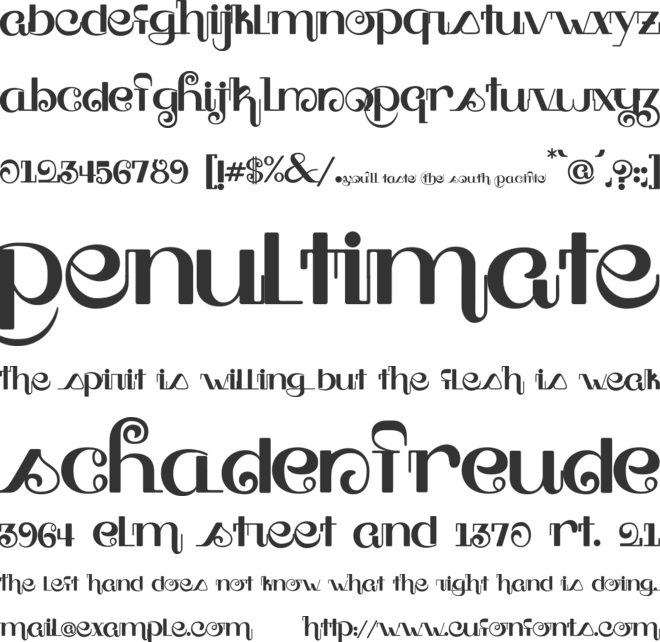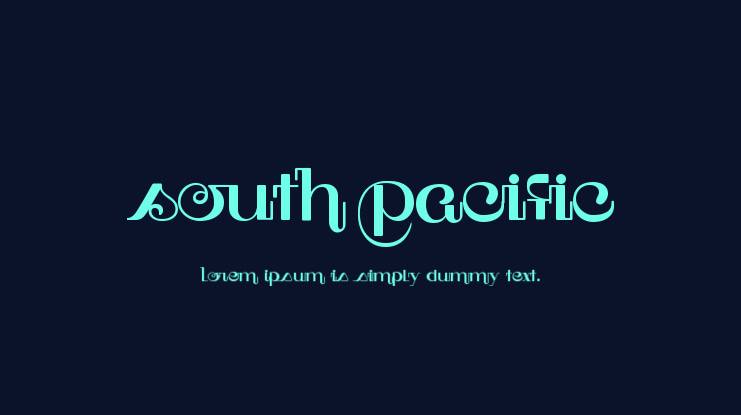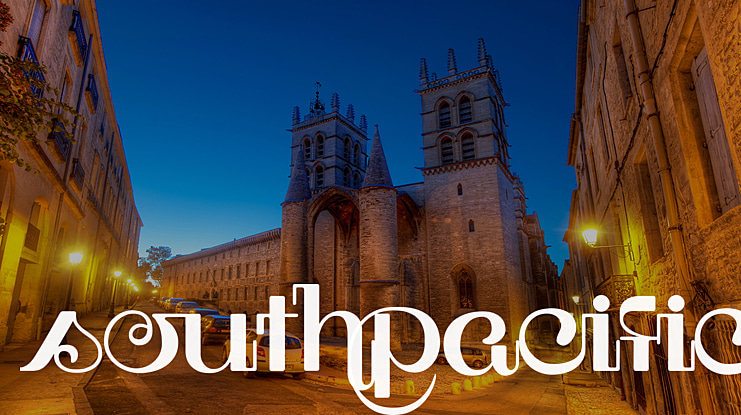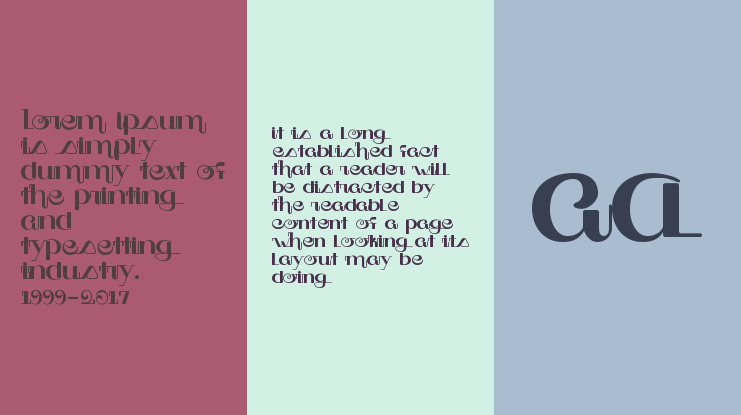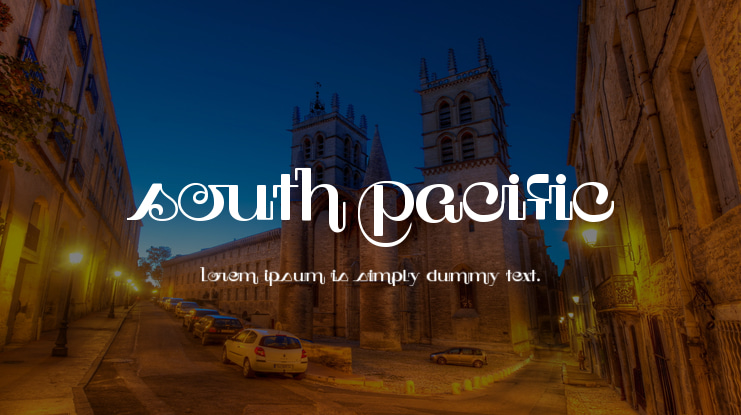
South Pacific Font
Inspired on a phrase using south pacific lettering imitation taken from: The ABC of Lettering by J.I. Biegeleisen. Harper & Row Publishers NY 1965. ISDN 65-14683.